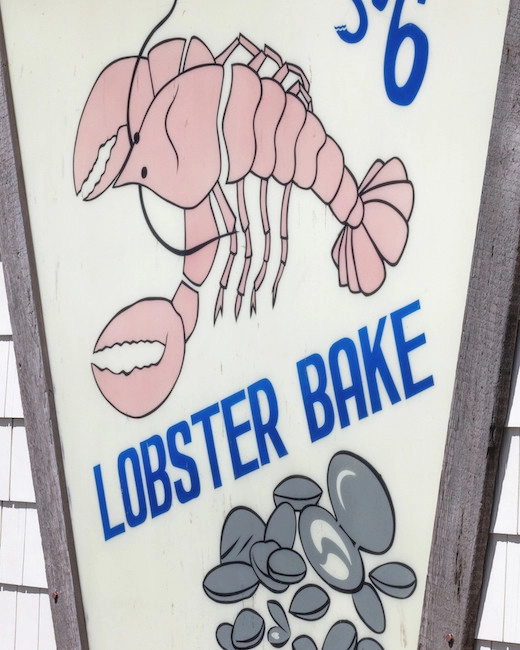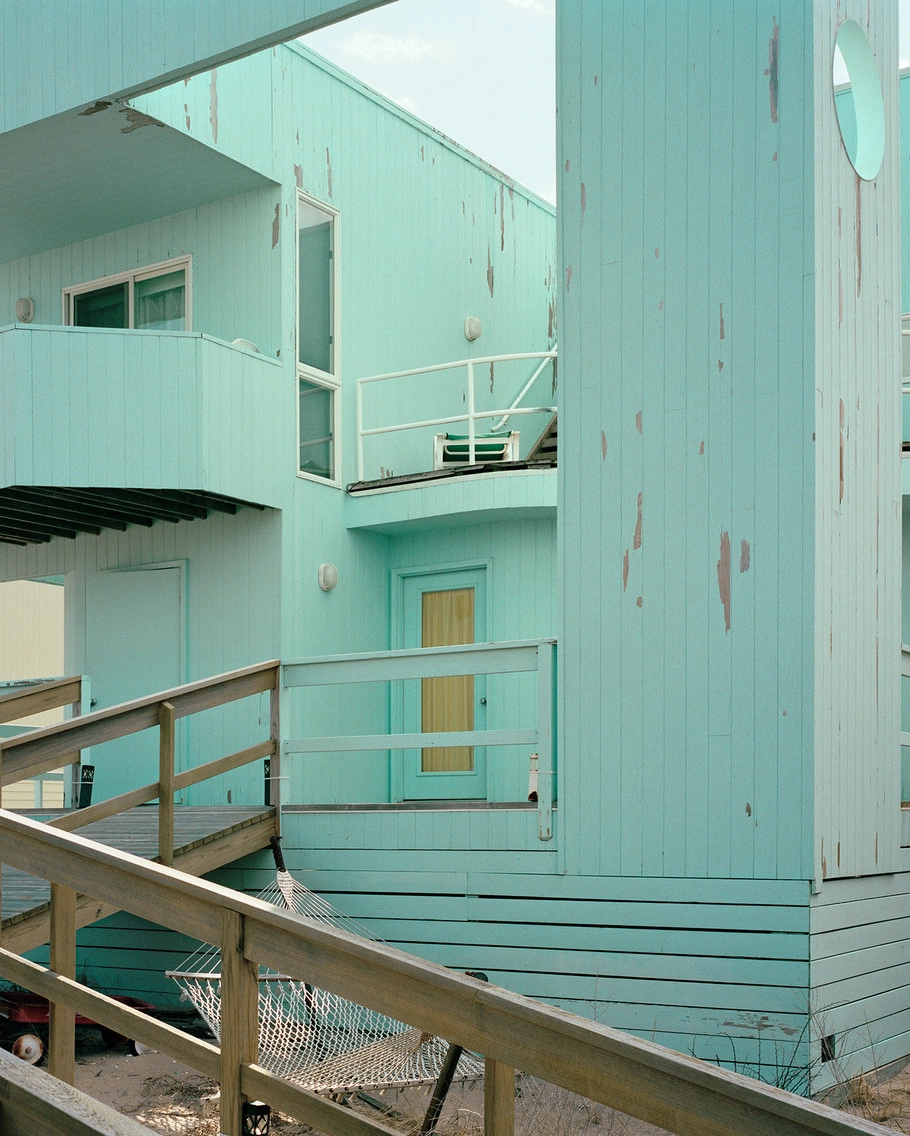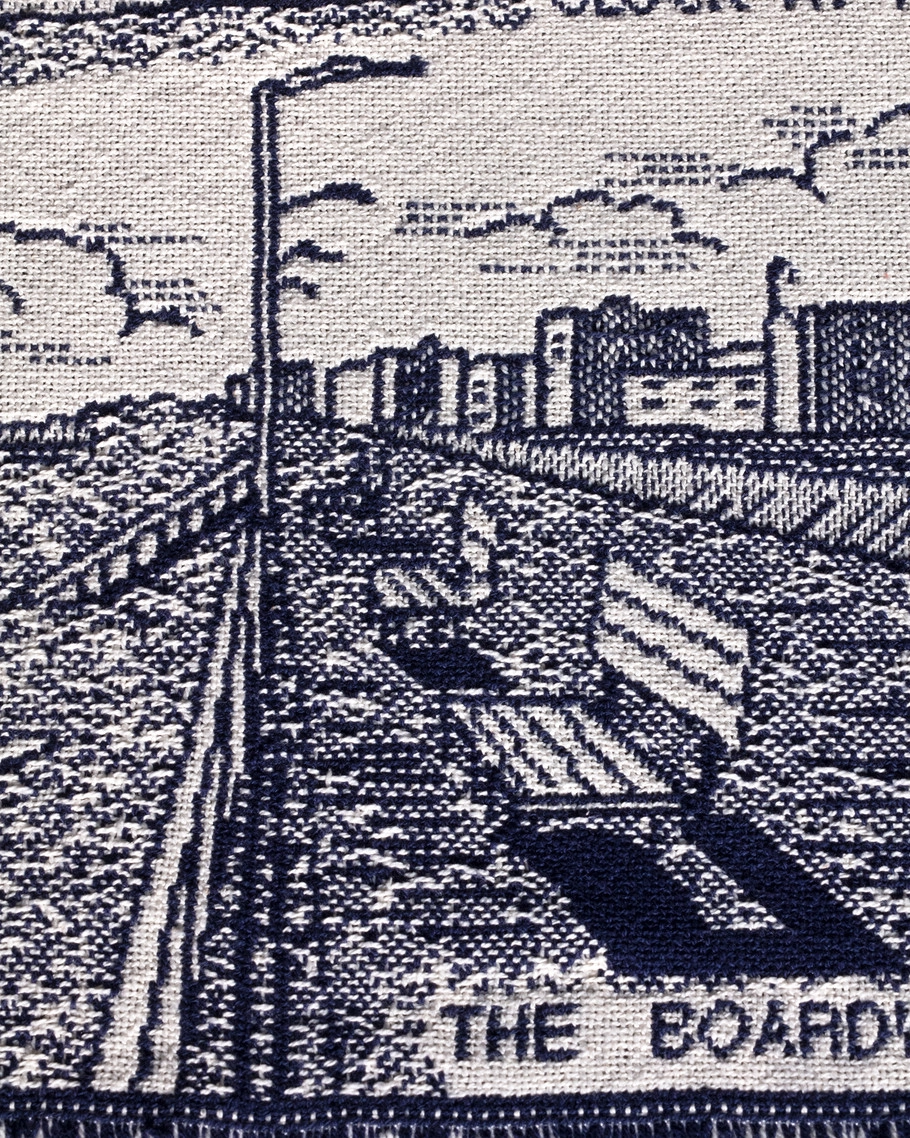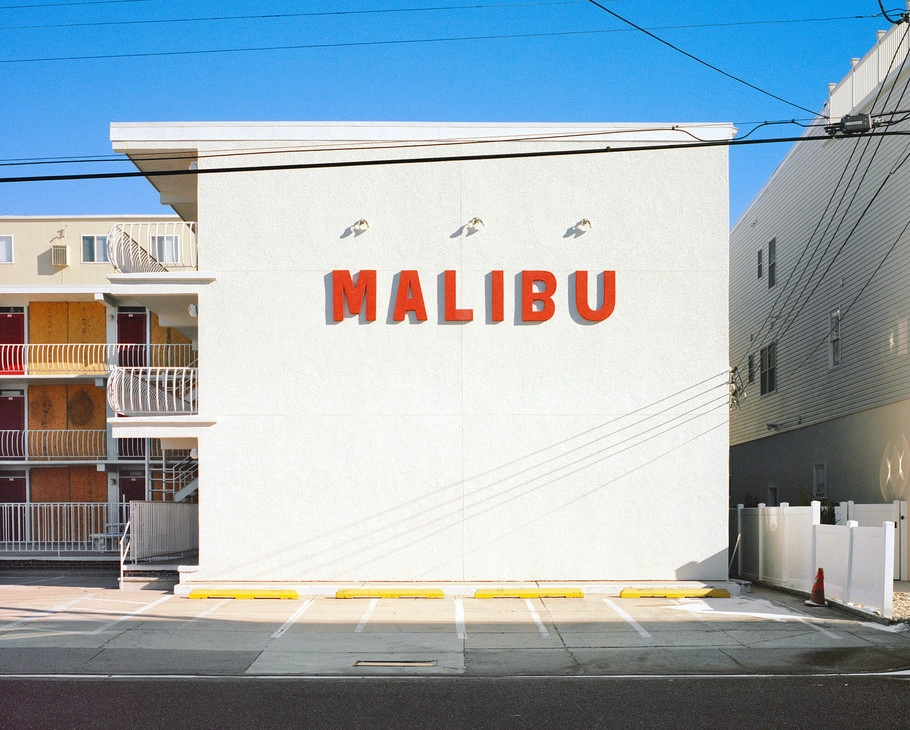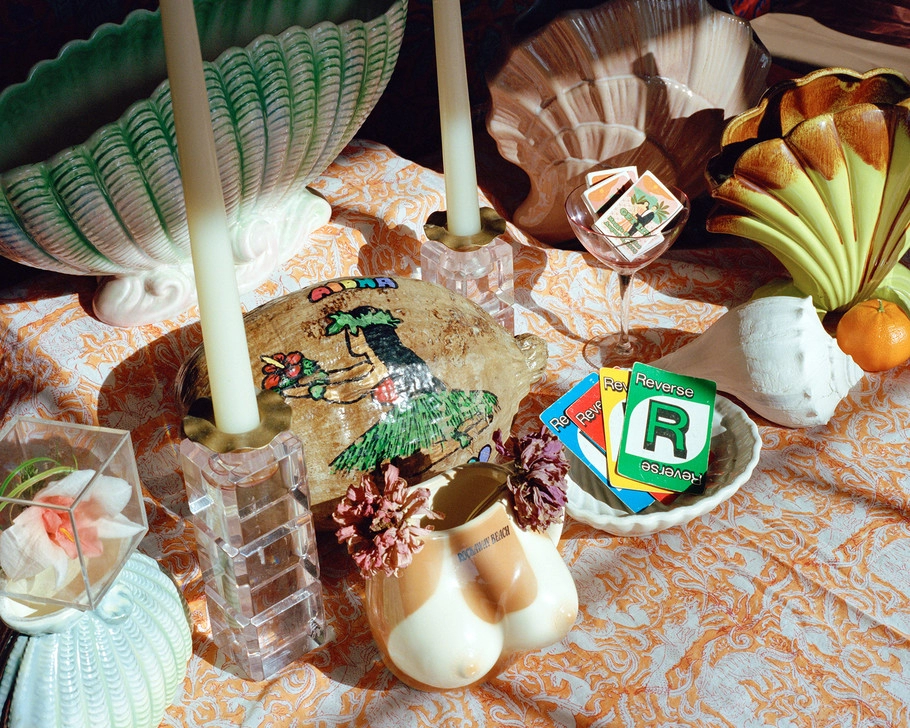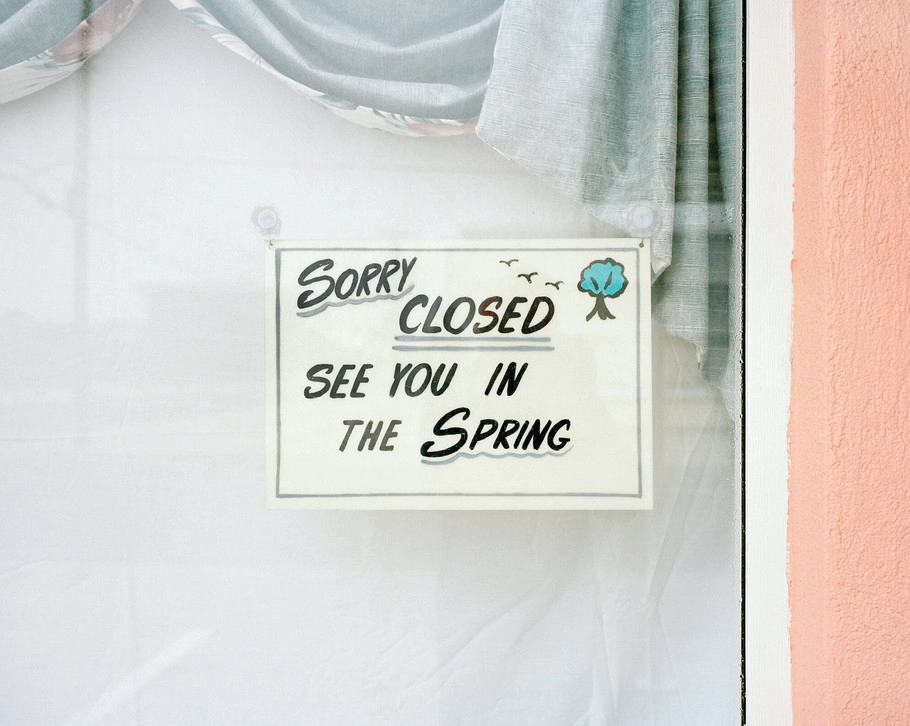
“ There's this photographer named Joel Meyerowitz and I heard him say once that taking a picture is like saying ‘yes.’ It's confirming what's in front of you and being excited about it and pointing with a camera and saying ‘yes.’ ”
Tyler Haughey.
Tyler Haughey has made a career for himself photographing the unseen angles of beach towns in the off-season—neon signs glowing in the snow, darkened motel rooms blinking out of deep hibernation, a promise to “see you next spring” painted by some unknown hand.
Growing up outside Asbury Park on the Jersey shore, Haughey has long been intimately familiar with this seasonal ebb and flow, as well as the precarious existence of towns that are almost entirely reliant on summer tourism to survive. His photography unearths the small details of life outside those fairy-tale summer months, and challenges the viewers to see “the place as it is versus the place as we want it to be.”
As the son of a union sign painter, it’s no surprise that signage has always featured prominently in Haughey’s work. “I can picture driving in the car with [my dad] and all of a sudden he’d point to a sign on the road or up on the hill and say, ‘Oh, that’s a great sign. That’s a great sign,’” Haughey recalls. “There’s this photographer named Joel Meyerowitz and I heard him say once that taking a picture is like saying ‘yes.’ It’s confirming what’s in front of you and being excited about it and pointing with a camera and saying ‘yes.’ So, similar to what Tim Haughey would do.”
His father’s career “really made an imprint on me,” Haughey says. “I don’t know how aware of it I was [early in his career], but when it came to what I’m drawn to when I’m out shooting and when I have my antennas out looking for subject matter, I’m drawn to bold colorful signage and roadside, vernacular structures.”
Up to this point, Haughey’s work has largely focused on his home territory along the Jersey shore, with an emphasis on the city of Wildwood in his photo series Ebb Tide. Wildwood, to the uninitiated, is home to a large concentration of original mid-century beach motels festooned with vivid, space-age neon signage alongside fake palm trees and other quirky, themed decorations.
For Haughey, Wildwood and places like it offer a chance to explore the space between nostalgia and memory and examine how certain signifiers—like signage and décor—anchor those experiences in our minds. “Memories start out being very familiar and recent and tangible,” Haughey says, “and then as you get further and further away from that summer vacation, they kind of turn strange and take on this fantastical element. You’re not really sure—did that really happen? Was it really that sunny? I think the nature of memory is that it just becomes less and less specific over time.”
Haughey’s most recent work goes further afield to explore similar spots up and down the East Coast, and focuses less on the built environment and more on what he calls “details we might ignore or forget: the warped angle, the errant hammock, the constellation of gift shop tchotchkes that form a portrait of the person who bought them.” His new show, Eastern Standard, debuts Oct 14 at the Sears Peyton Gallery in New York City, and runs through November 20.